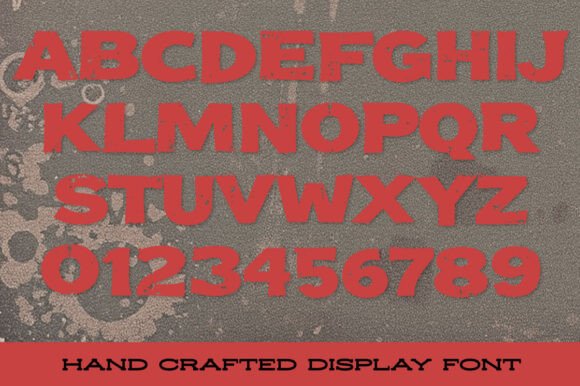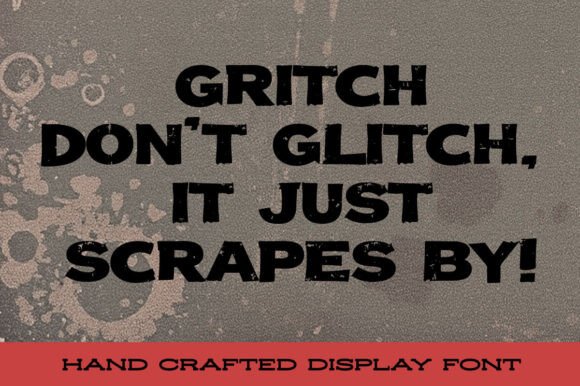
The Gritty Truth: Unleashing the Power of Gritch Font
I still remember the design project that led me to discover Gritch Font. I was working on a punk rock poster for a local band, and I needed a font that would capture the raw energy and rebellious spirit of their music. After hours of scouring font libraries and online marketplaces, I stumbled upon Gritch – a rough, rugged, and unapologetically distressed font that embodied the essence of grunge. It was love at first sight! 💥
An Honest Review: The Good, the Bad, and the Quirky
What I Love About Gritch Font
- ✨ Instant grunge authenticity: Gritch delivers a powerful punch of grunge attitude, making it perfect for bold headlines, rebellious branding, and edgy designs.
- ✅ Rough, textured look: The font’s eroded textures and worn-down letterforms give it a unique, high-impact aesthetic that’s hard to achieve with other fonts.
- 💯 Versatility: Gritch works well for a wide range of design projects, from punk rock posters to vintage-inspired logos and apparel designs.
While Gritch is an amazing font, it’s not without its quirks. Here are a few things to keep in mind:
- 🤔 Legibility at small sizes: Due to its distressed texture, Gritch can be tricky to read at small font sizes. Use it for headlines or large text to get the most impact.
- ⚠️ Limited OpenType features: Gritch doesn’t have a wide range of OpenType features, but it does offer some stylistic alternates and glyphs to add variety to your designs.
Exploring Alternatives: Similar Fonts to Gritch
If you love Gritch, you might also enjoy these similar fonts:
- Bebas Neue: A bold, modern font with a similar grunge aesthetic. Use it for headlines and titles that demand attention.
- Rock Salt: A distressed font with a more rustic, hand-drawn feel. Perfect for designs that need a bit of texture and character.
- Akzidenz-Grotesk: A classic grunge font with a bold, industrial look. Use it for designs that require a strong, edgy aesthetic.
- Gravur: A rugged, distressed font with a unique texture. Great for designs that need a bit of grit and attitude.
The Designer’s Inspiration: A Backstory
While the true story behind Gritch’s creation is unknown, it’s easy to imagine a designer fueled by a passion for grunge music and a desire to create a font that would capture its raw energy. Perhaps the designer spent hours pouring over vintage punk rock posters, taking note of the rough textures, bold typography, and rebellious spirit that defined the genre. Whatever the inspiration, Gritch is a font that’s sure to resonate with designers who love grunge.
Q: What type of designs is Gritch best suited for?
A: Gritch is perfect for bold headlines, rebellious branding, and edgy designs that demand a gritty, high-impact aesthetic. It’s great for punk rock posters, vintage-inspired logos, and apparel designs.
Q: Does Gritch have any OpenType features?
A: Yes, Gritch offers some OpenType features, including stylistic alternates and glyphs. These can be accessed through the font menu in compatible design software.